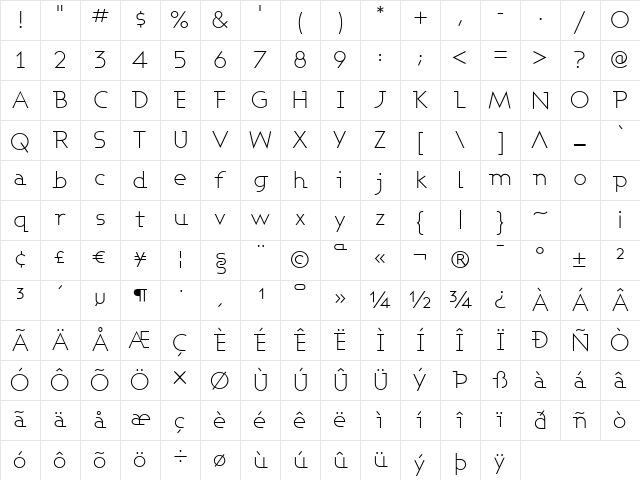
Ashby Light Regular Free Font
Ashby Light Regular
Design Context for Ashby Light
Ashby Light is a composed and adaptable typeface that performs quietly and consistently across a wide range of design contexts. Its slender proportions lend an understated elegance to any composition.